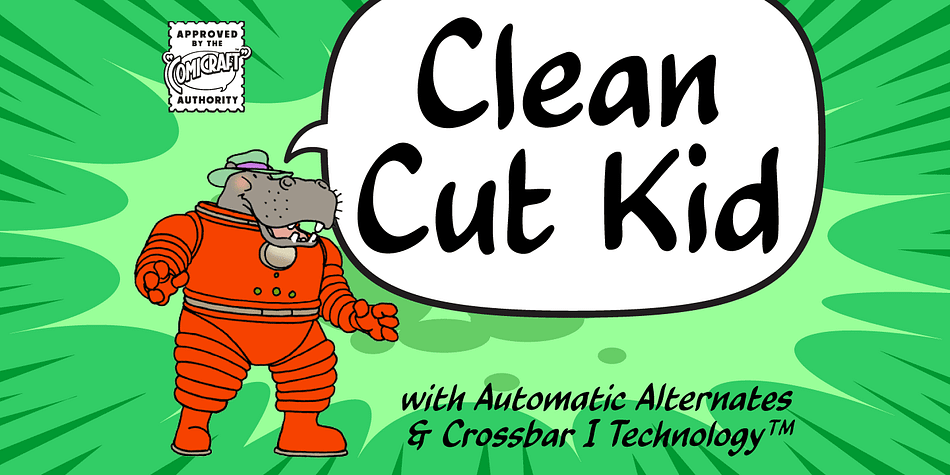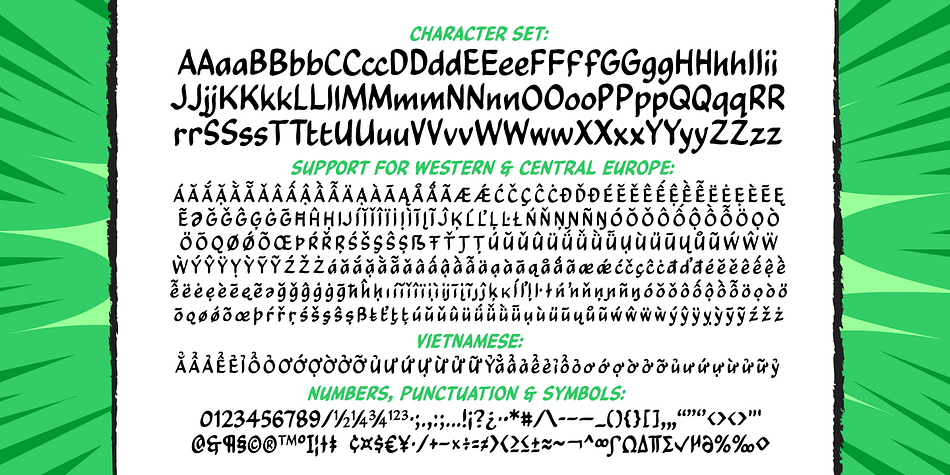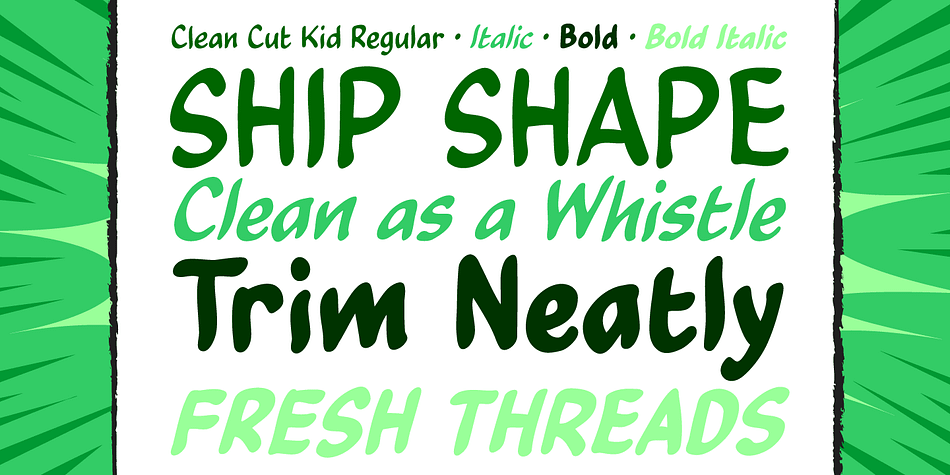
Designed by John Roshell, Clean Cut Kid is a comic and hand drawn font family. This typeface has two styles and was published by Comicraft.
Sharper than a disposable cardboard razor, better looking than the lovechild of Brad Pitt and George Clooney, Comicraft’s CleanCutKid is high definition and perfectly neat and trim in appearance! It’s not only more ship-shaped than a ship-shaped ship, it’s also cleaner than a whistle that’s really really clean and whistly. Raised by jolly good sports, this eager to please font won’t get you in any stubble.